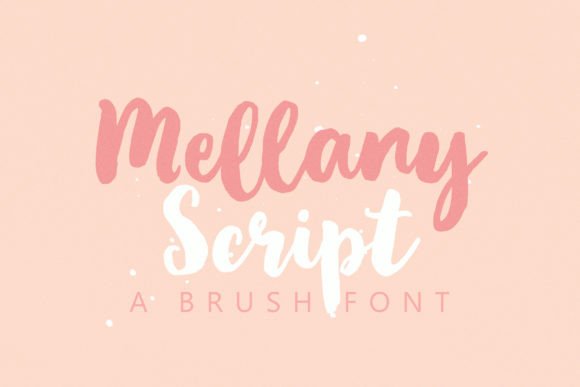
Are you tired of using the same old boring fonts for your design projects? Look no further than Mellany Script Font! Created by Bellinghamtype, this exquisite script font is a game-changer for anyone looking to add a touch of elegance and personality to their designs.
Mellany Script is the perfect choice for a variety of sophisticated applications, including wedding invitations, branding, and posters. In fact, it is the best font for posters in Canva, thanks to its fluid strokes and delicate curves that create a sense of movement and grace.
What sets Mellany Script apart from other fonts is its PUA encoding, which means that you can easily access all delightful glyphs and swashes without any hassle. This feature allows you to personalize your designs and make them truly unique.